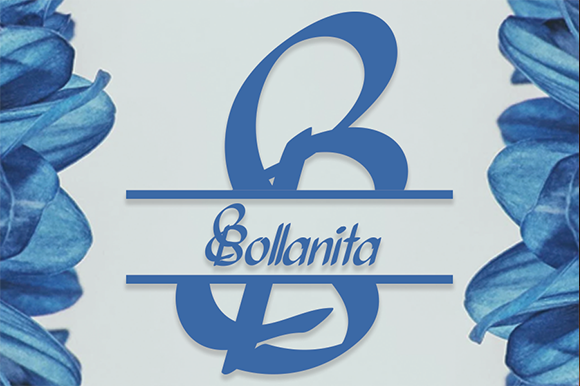
The Bollanita Font: A Timeless Choice for Creative Designs
I’ll never forget the time I was working on a project for a client who wanted a font that was both elegant and friendly. I had spent hours browsing through font libraries, but nothing seemed to fit the bill. That was when I stumbled upon Bollanita, a display font that instantly caught my attention. Its classic style and charming feel made it the perfect fit for my project, and I’ve been a fan ever since.
An Honest Review of Bollanita
- ✨ Classic yet friendly feel: Bollanita strikes the perfect balance between elegance and approachability.
- ✅ Highly versatile: This display font can be used for a wide range of design projects, from logos and titles to packaging and branding.
- 💫 Unique character: Bollanita has a distinct personality that sets it apart from other fonts.
While Bollanita is an excellent font, it’s not without its quirks. For example:
- ⚠️ Limited use for body text: Due to its elegant and cursive nature, Bollanita may not be the best choice for large blocks of text.
- 🤔 Some letter combinations may require adjustment: As with any font, some letter combinations may not flow perfectly, requiring manual adjustment.
The Backstory of Bollanita
Bollanita was designed by a team of typographers who wanted to create a font that was both timeless and elegant. Inspired by classic calligraphy, they crafted a font that would be perfect for designers, crafters, and creative hobbyists. With its unique character and versatile design, Bollanita has become a popular choice for a wide range of design projects.
Q: What type of designs is Bollanita best suited for?
A: Bollanita is perfect for designs that require an elegant, yet friendly feel, such as logos, titles, packaging, and branding.
Q: Can I use Bollanita for body text?
A: While Bollanita is an excellent font, it’s not recommended for large blocks of text. Its elegant and cursive nature makes it better suited for headings and titles.
Q: Does Bollanita support OpenType features?
A: Yes, Bollanita supports OpenType features, glyphs, and stylistic alternates, making it a versatile font for designers.